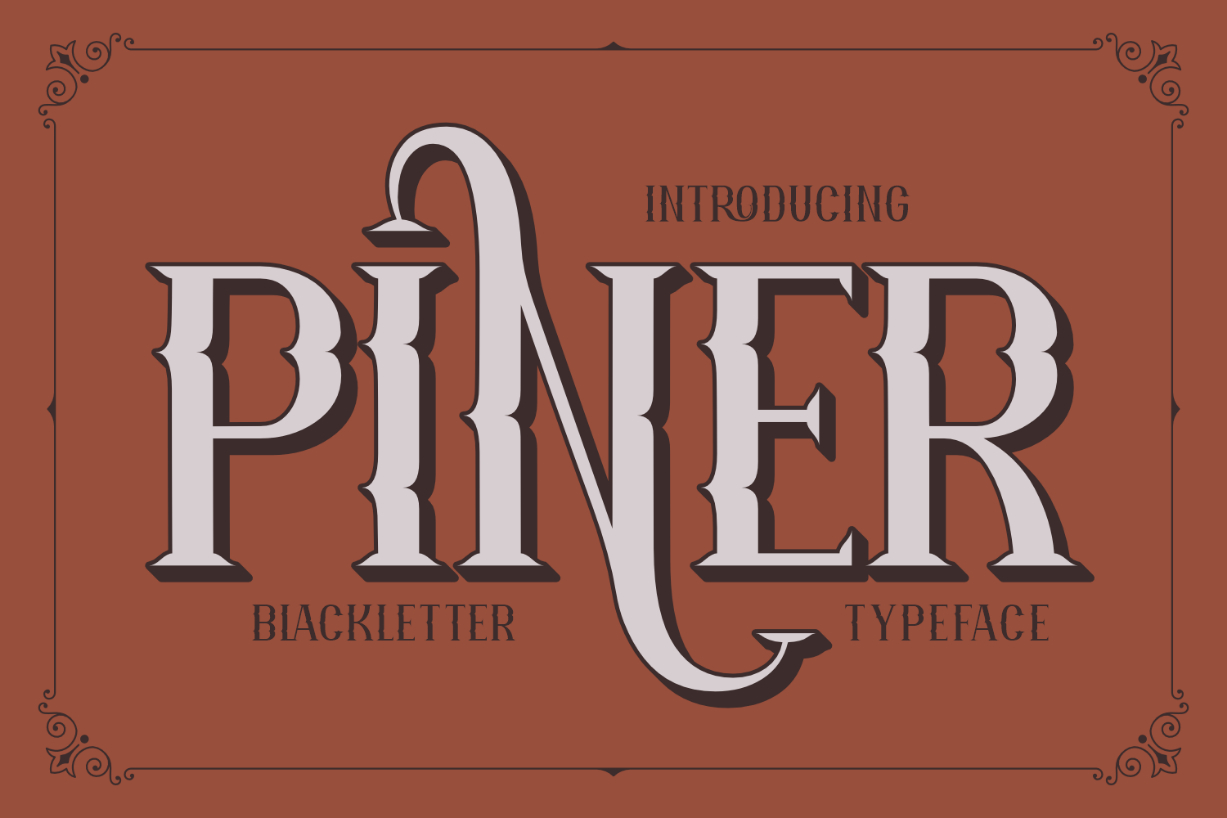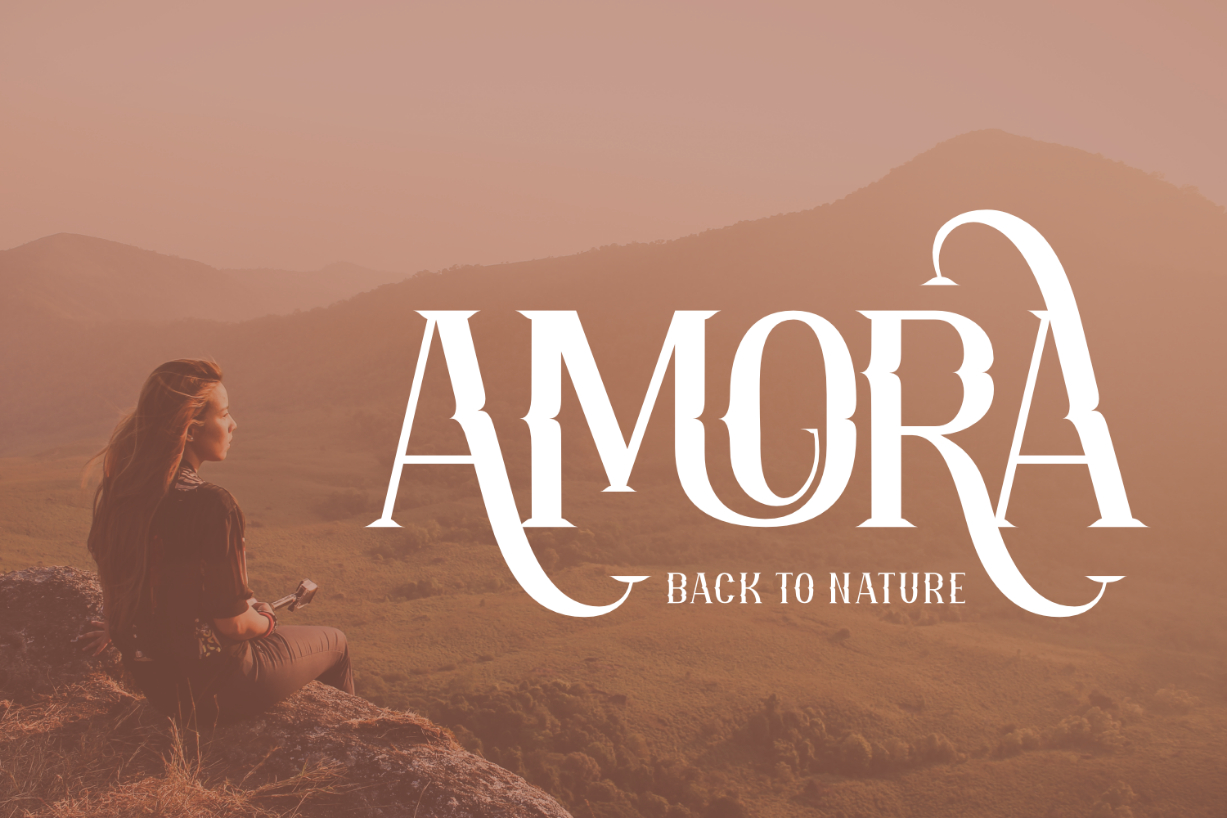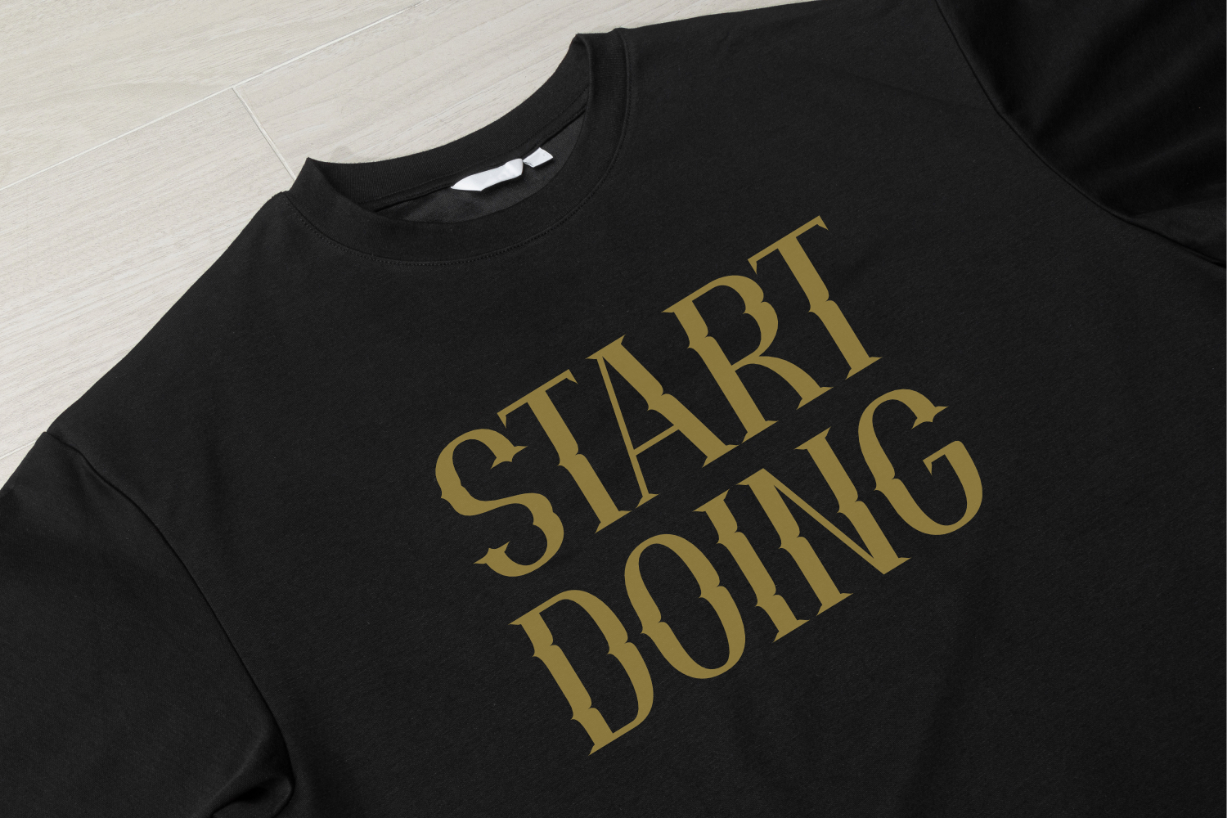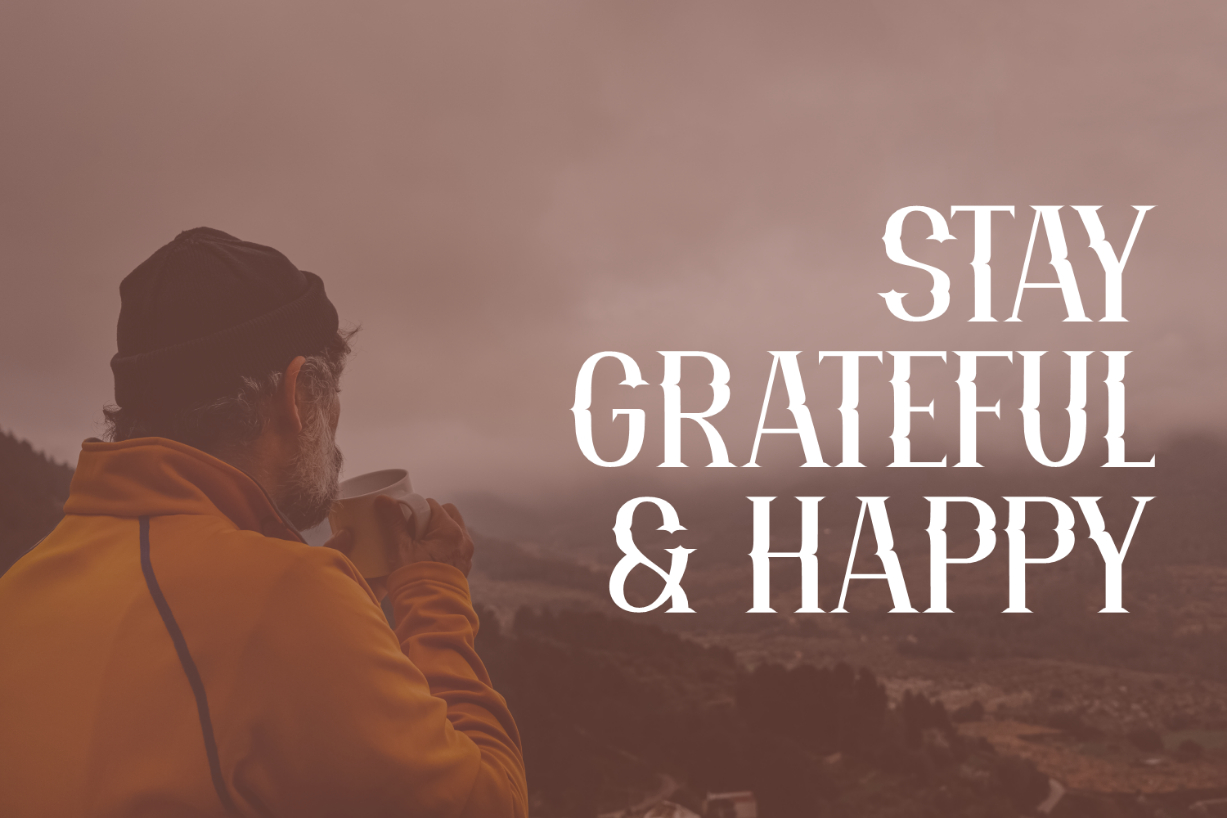
Piner Font
About Piner Font
Piner is a classy and elegant blackletter font. The graceful swashes and thin strokes give this font a refined look, making it an incredible asset to your design library. Add it confidently to your creations, and you will be impressed by the results it delivers!
This font is PUA encoded, so you can easily access all the glyphs and swashes!